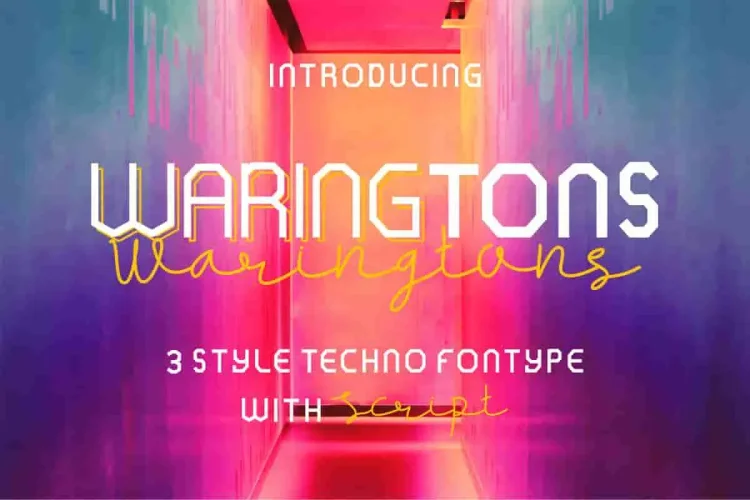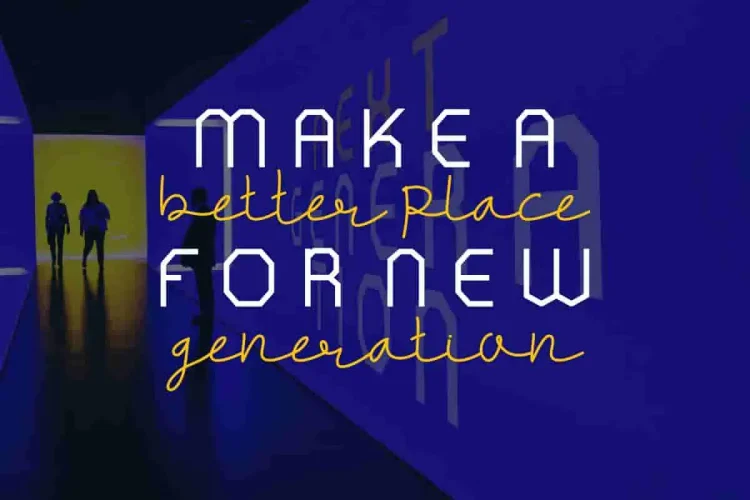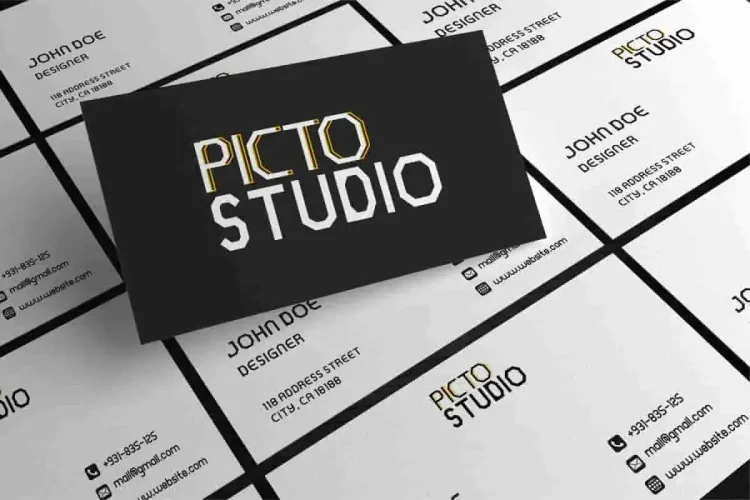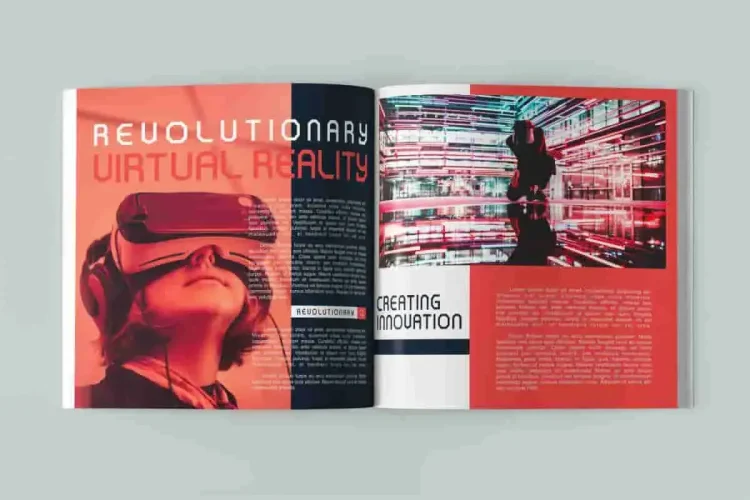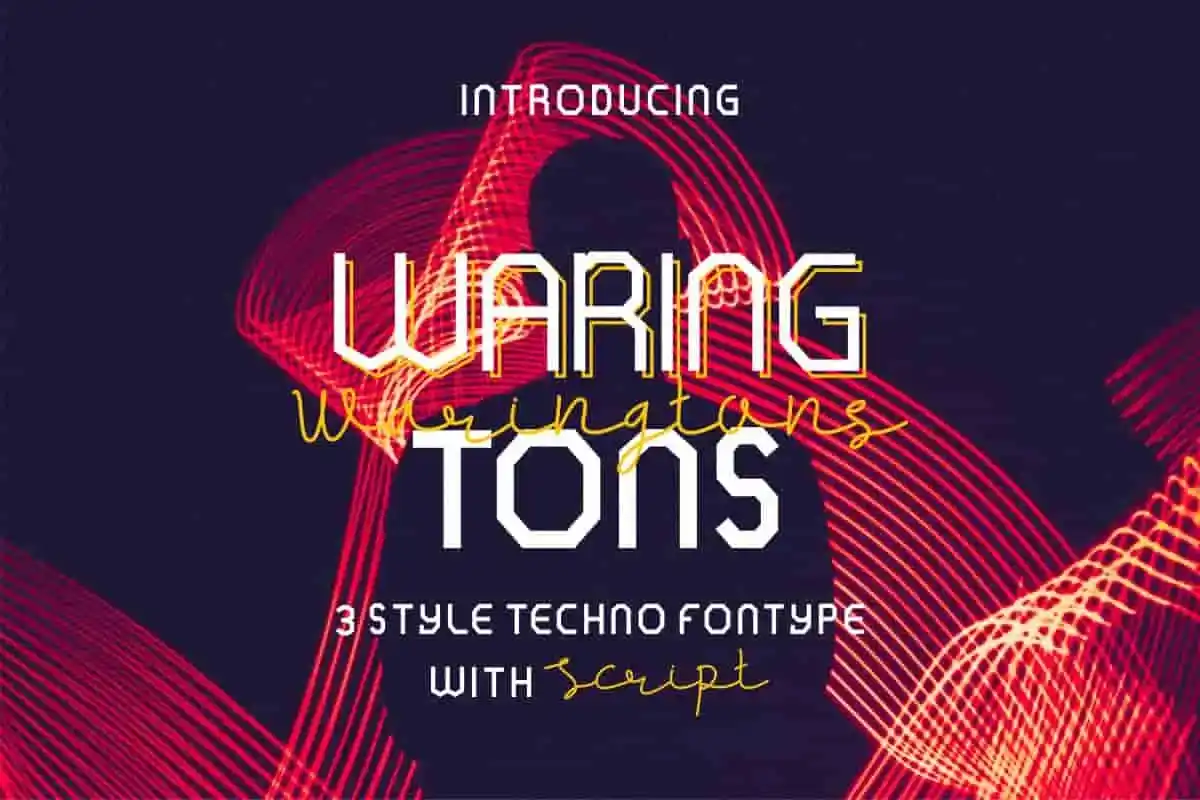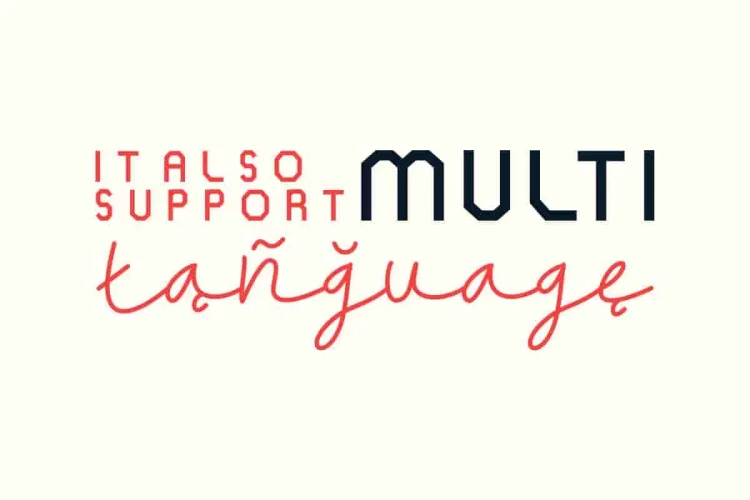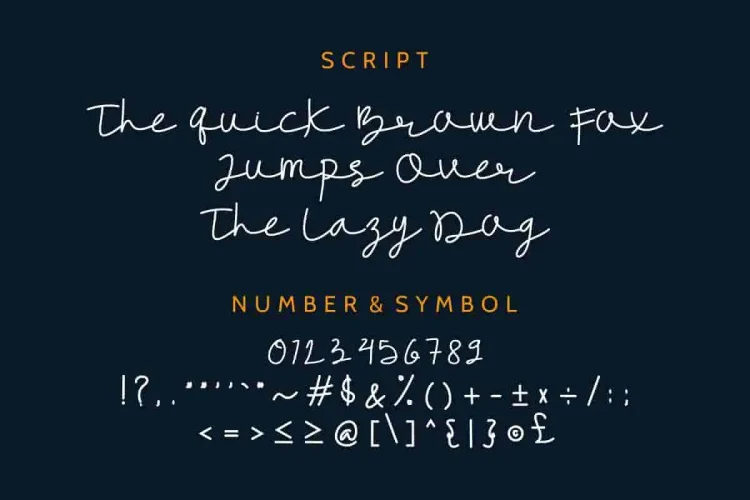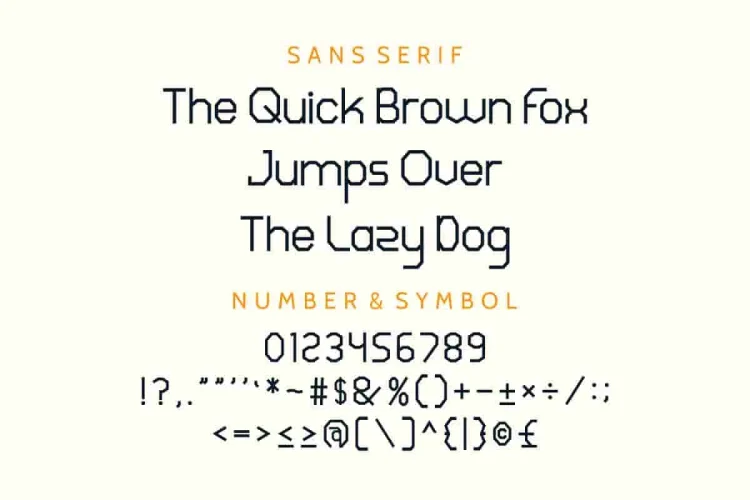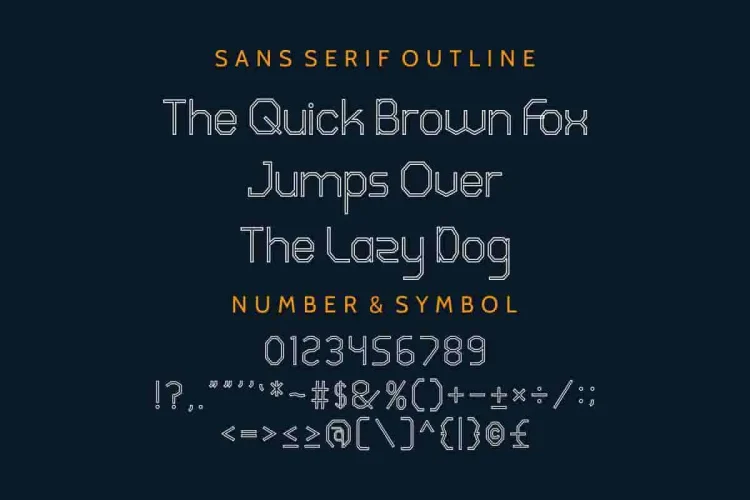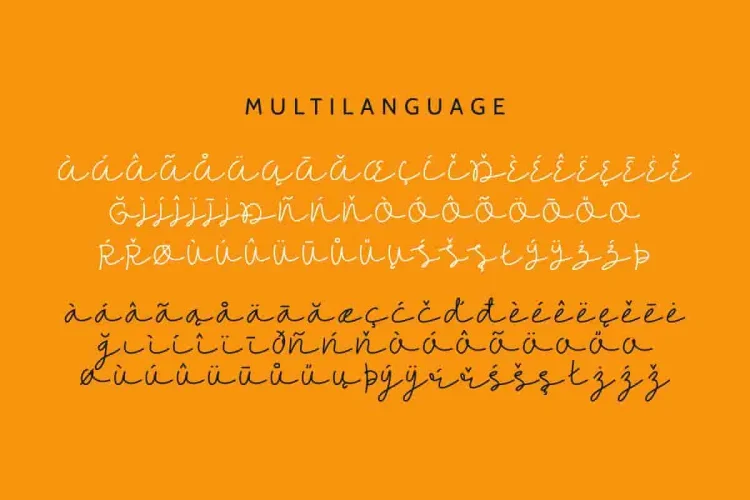
Waringtons Handwritten Script Font Duo
We’re thrilled to introduce our newest font : WARINGTONS! This is a new font family consist of 4 fonts styles : Regular, Bold, Outline and Handwritten script. Designed to bring personality and power to your creative projects. Whether you’re working on branding, packaging, posters, or social media content, Waringtons has everything you need to make your designs stand out.
🖋 What’s Inside the Waringtons Font Family?
To start with, this font duo includes four versatile styles:
• Regular
• Bold
• Outline
• Handwritten Script
Each style is crafted to balance clean structure with human warmth. In fact, the handwritten script adds a natural, friendly touch, while the bold and outlined sans serif styles offer a strong visual impact.
Waringtons is a true font duo. It flawlessly combines modern sans serif with handwritten charm, giving you full creative control over tone and expression. Moreover, this pairing allows for flexible use in both professional and casual settings.
Need to highlight something important? Use the Bold or Outline version for clear, eye-catching headers. Want to keep things personal and relaxed? The Handwritten Script does the trick beautifully.
Another standout feature is its multilingual support. As shown in the preview, Waringtons handles accented characters smoothly—perfect for reaching global audiences. So whether you’re designing in English, Spanish, French, or beyond, this font has you covered.